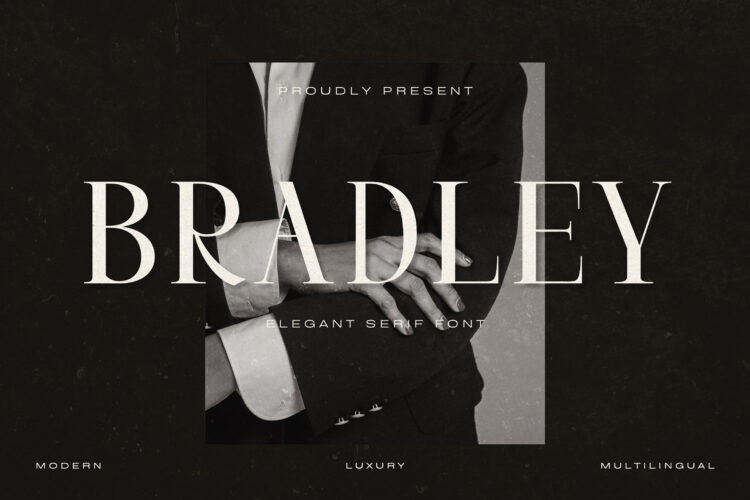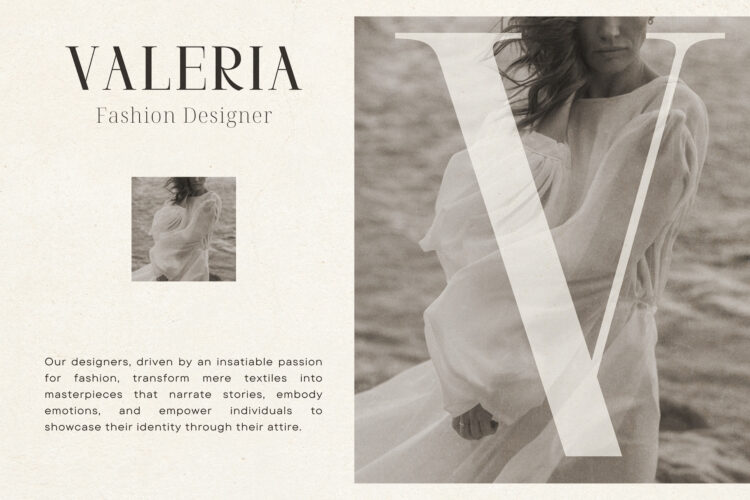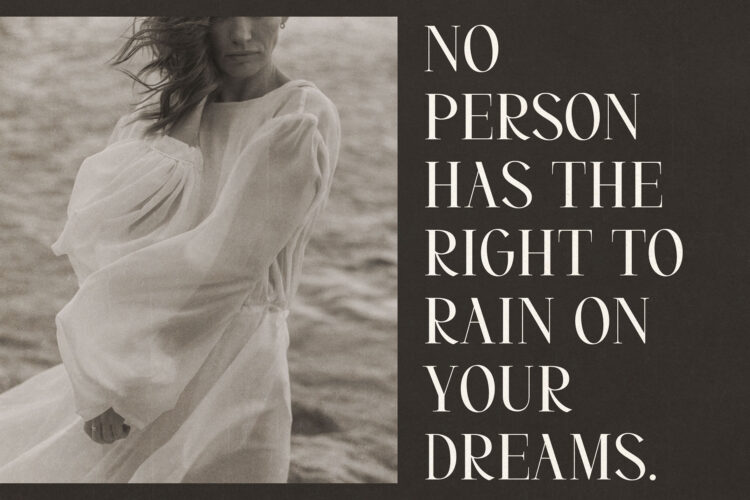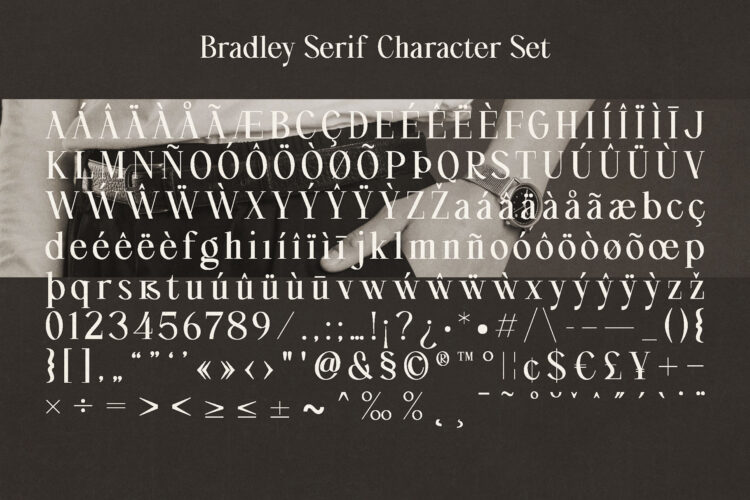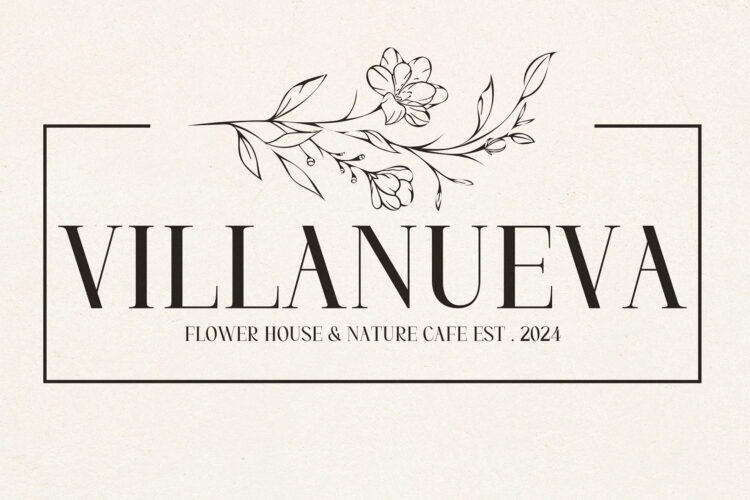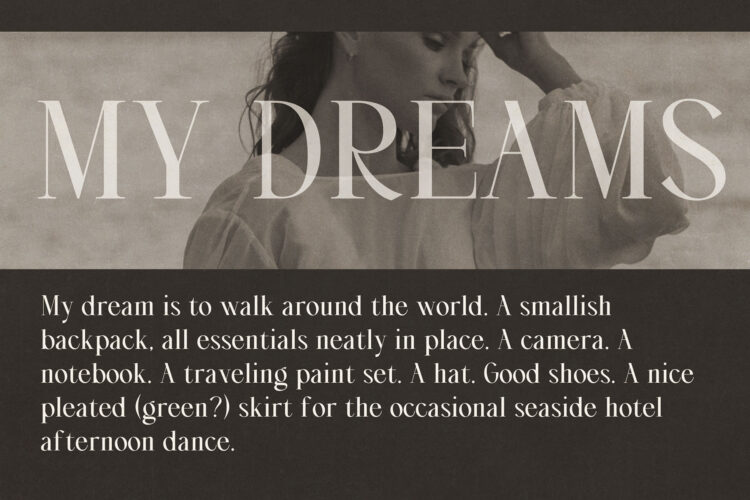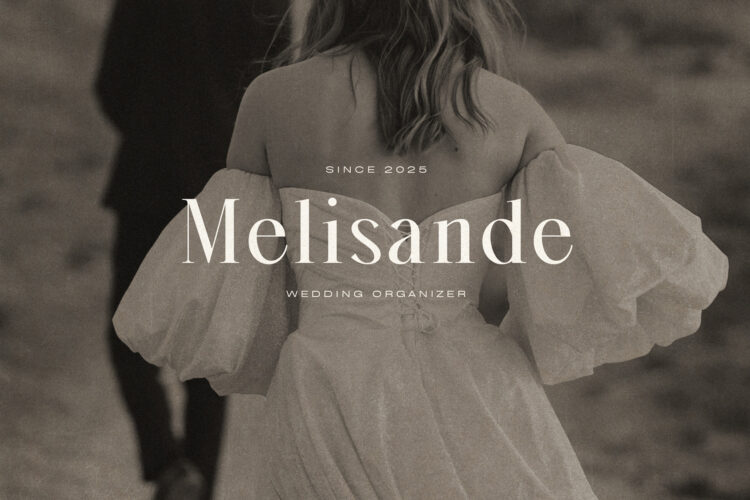
Introducing our new Bradley, a Elegant Serif Font with elegant style this is perfect for branding, logos, invitation, magazines, product packaging and more.
Bradley – Elegant Serif Font